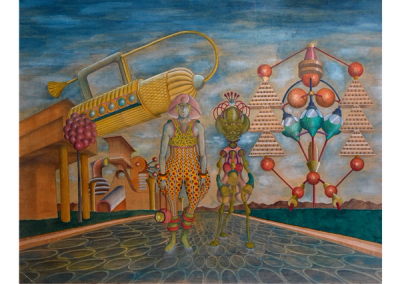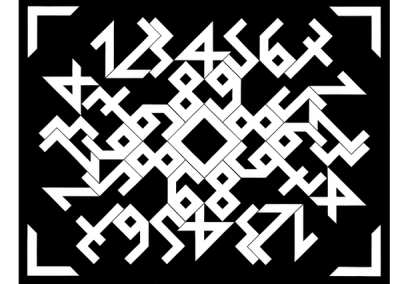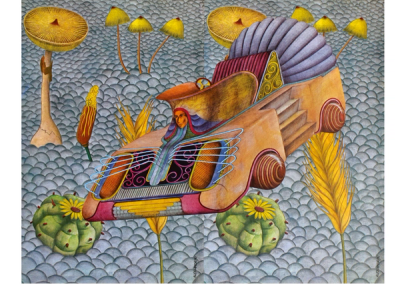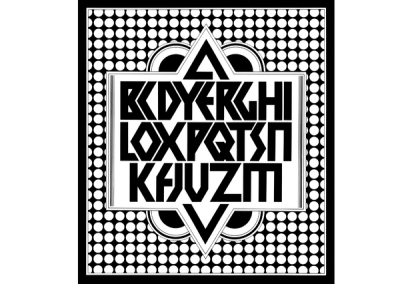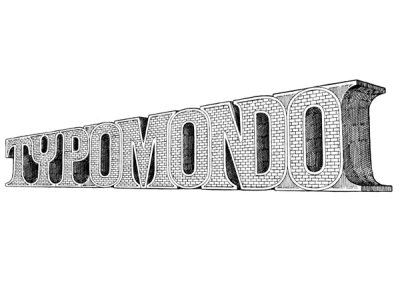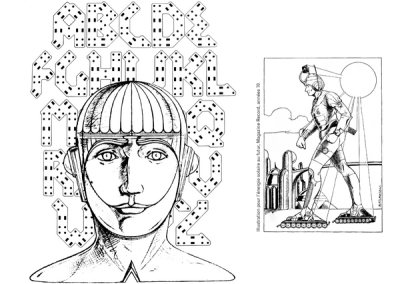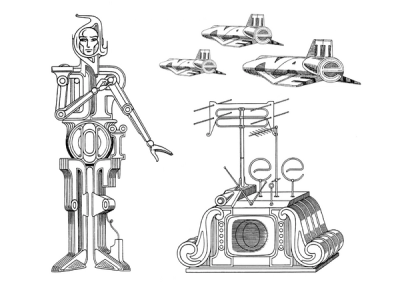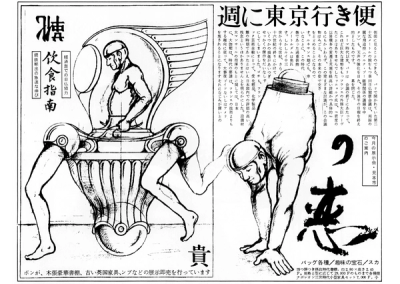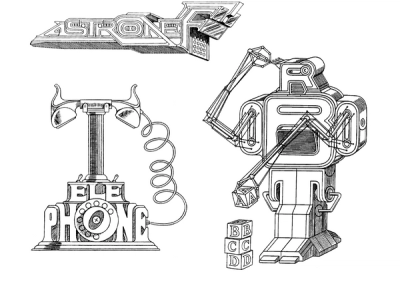
Cahier Visionnaire
by Jean Alessandrini
In June 2019, during a meeting in his apartment located in Strasbourg, Jean Alessandrini (b. August 3rd of 1942 in Marseille, France) shared with us his passion for sci-fi drawings. Today, we are honored to present for the first time, in Diorama No.2, some of his, yet, unpublished designs. Emblematic graphic and type designer in France, Alessandrini is also a writer and a draftsman. His anachronistic and futuristic worlds inhabited by words reflect the vision of a technological and polyphonic future, rich from its cultural and historical hybridizations, far from the concept of unique and holistic vasarelian folklore.
As children of myths fostered by sci-fi, it was a great pleasure for us to share with Jean our research as well as the typographic video game in Mesh typeface that we developed for this issue. Echoing with his own practice, a collision between our two generations occurred and it gave birth to the design of his Typomondo. Our exchanges on common hopes for a world of fantasy and expressions are embodied in this book, where his words and ours intertwined, so that our dreams can live and be transmitted. We thank him warmly and are proud to have him as one of our contributors.